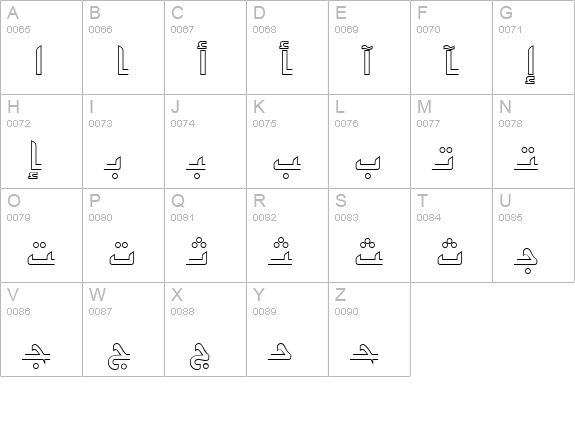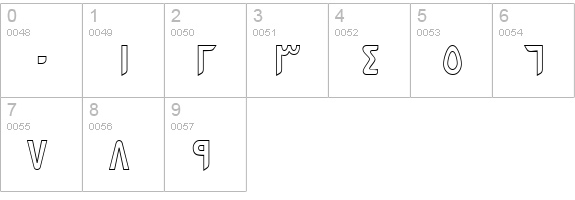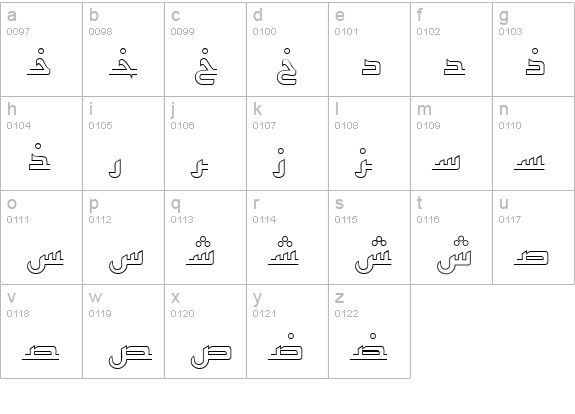
ArabicKufiOutlineSSK Font Details
ArabicKufiOutlineSSK font is a stunning display typeface that beautifully captures the essence of traditional Arabic calligraphy with a modern twist. Its intricate outlines and delicate curves give it a unique and elegant appearance, making it perfect for a wide range of design projects. This font is not only visually striking but also versatile, suitable for both headlines and body text. Whether you're designing a poster, logo, website, or any other creative project, ArabicKufiOutlineSSK font will add a touch of sophistication and style. And the best part? ArabicKufiOutlineSSK font is completely free to download at FontsMarket.com, making it accessible to designers and creatives looking to enhance their work with a touch of Arabic flair. Don't miss out on this opportunity to elevate your designs with this exquisite font.